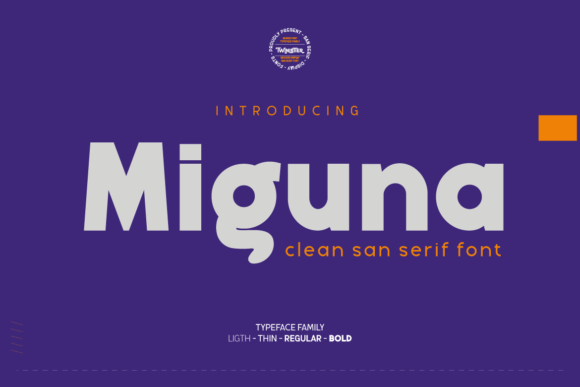
Introducing Miguna Font - The Gateway to Unparalleled Visual Storytelling!
In a world saturated with visual content, capturing attention and making a lasting impression is an art form. Enter Miguna Font, the sans serif font family tailor-made for Instagram Stories, ready to transform your storytelling into an unforgettable experience.
With its clean and versatile design, Miguna effortlessly blends into a diverse range of creative projects, adding a touch of sophistication and elegance. Its seamless adaptability makes it the perfect choice for fashionistas, travel enthusiasts, lifestyle bloggers, and anyone looking to elevate their visual presence on Instagram.
Imagine your Instagram Stories blooming with captivating visuals, each word carrying the weight of your message with unwavering clarity. Miguna's sharp and legible letterforms ensure that your content remains readable even on small screens, guaranteeing that your message reaches your audience crystal clear.
But Miguna is more than just a font; it's a tool to express your creativity and connect with your audience on a deeper level. Its clean lines and balanced proportions evoke a sense of modernity and sophistication, making your content stand out in a crowded digital landscape.
Using Miguna Font is like unlocking a secret door to a world of endless creative possibilities. Whether you're sharing travelogues, fashion hauls, or your daily musings, Miguna provides the perfect backdrop to showcase your content with style and impact.
So, embrace the power of Miguna Font and elevate your Instagram Stories to new heights. Let your creativity flourish as you weave captivating narratives, knowing that your message will resonate with your audience with undeniable clarity and impact.
Join the Miguna Font revolution today and unlock the full potential of your visual storytelling!